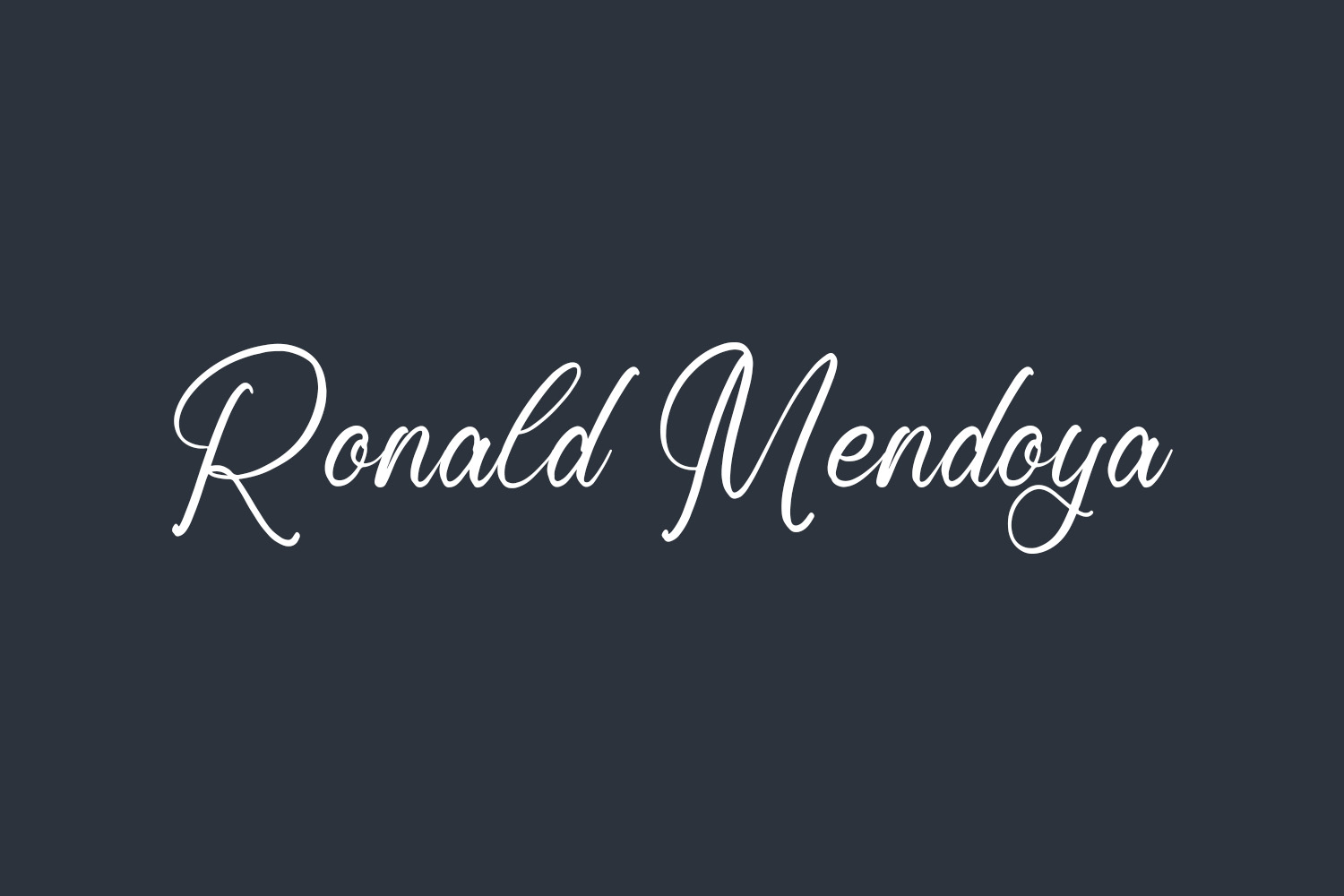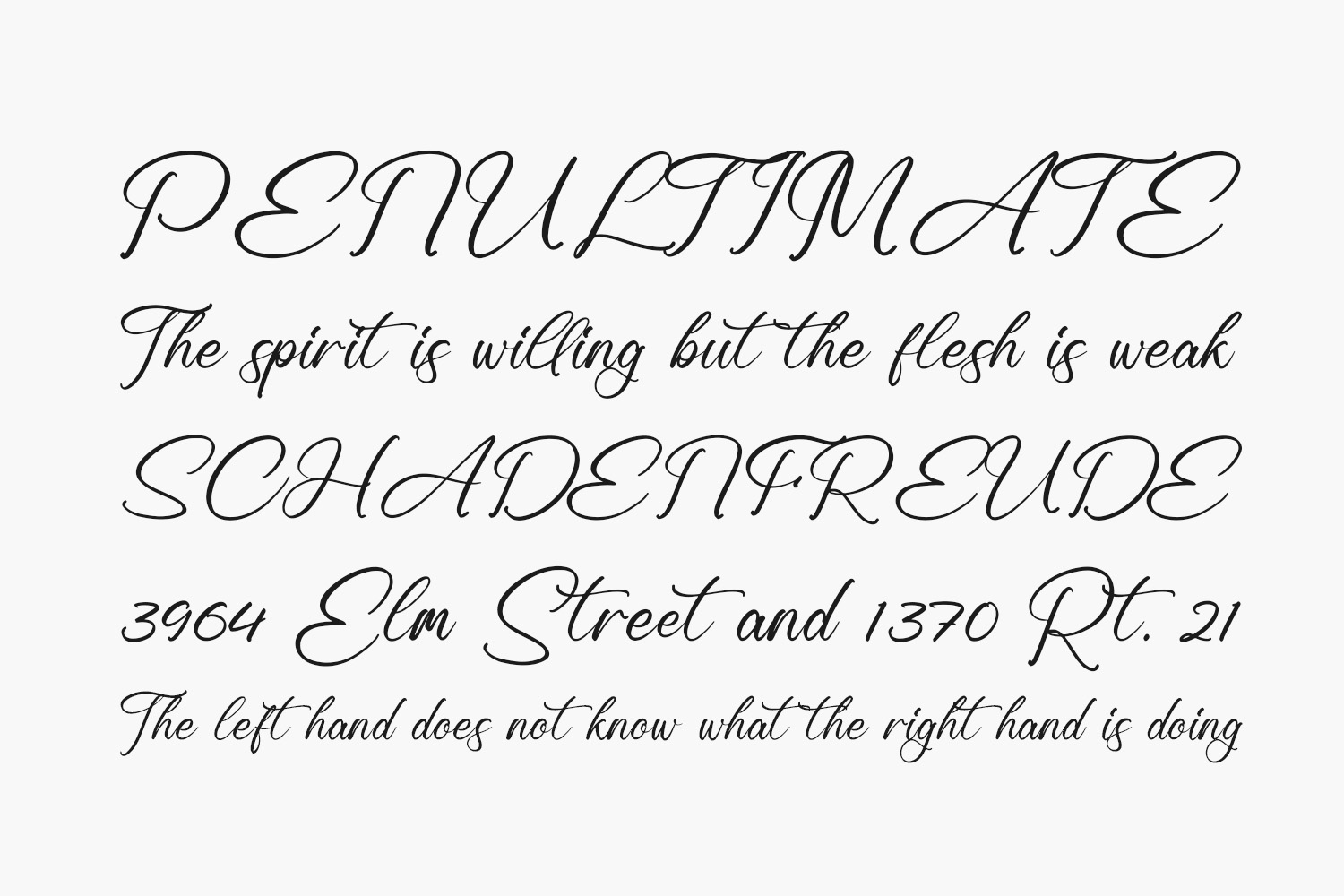
Introducing Ronald Mendoya Free Font, a script font with a vintage and mystical charm. With its whimsical style, this font is poised to transport your designs into a magical world, adding a touch of enchantment to your creative endeavors. Ronald Mendoya Free Font was designed by Letterena Studios and is free for personal use only. Please purchase the full version for commercial use.